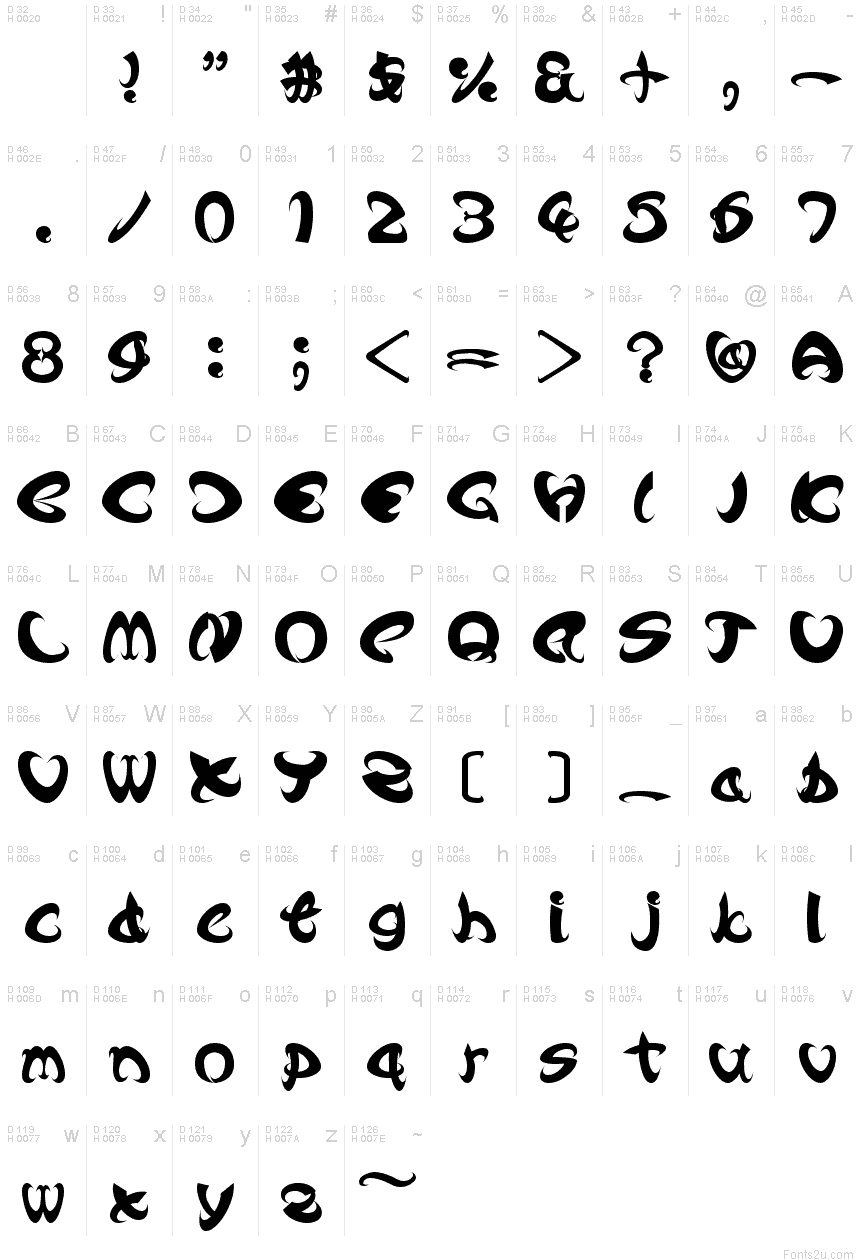
Angle Bold
Angle Bold font by Aÿsushi Moda is a free decorative display typeface with a loud, inky personality. Its chunky strokes swell and taper like a loaded brush, with teardrop-shaped counters and a slightly off-kilter rhythm that feels hand‑painted rather than polished. The Angle family’s bold style almost looks wet on the page, giving headlines a tactile, smeared-ink energy that grabs attention without slipping into chaos.
Using Angle Bold, this free font shines on posters, packaging, splashy logos, album covers, event flyers, and social media graphics where you want bold character and a touch of mischief. The generous curves and tight spacing create a compact, graffiti‑like texture that reads clearly at larger sizes. For balance, pair Angle Bold with a clean geometric sans for small text, and let Angle handle the loud, oversized words.
Design by Asushi Moda 1998